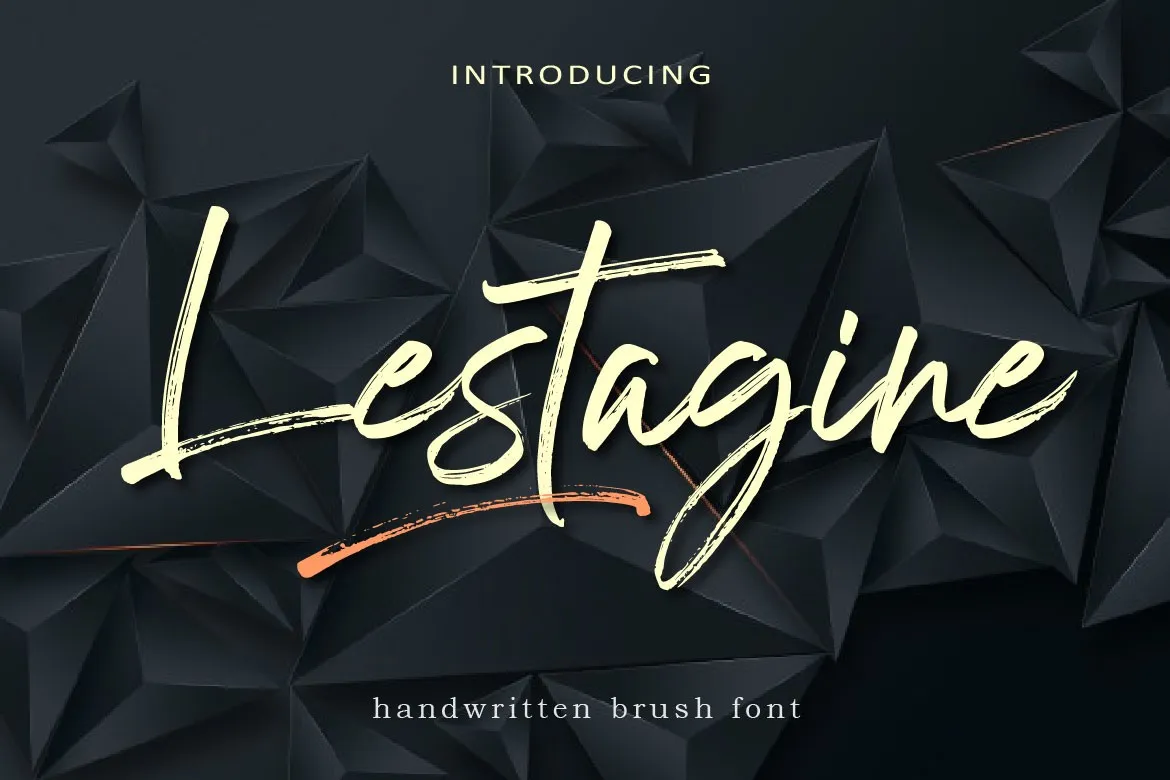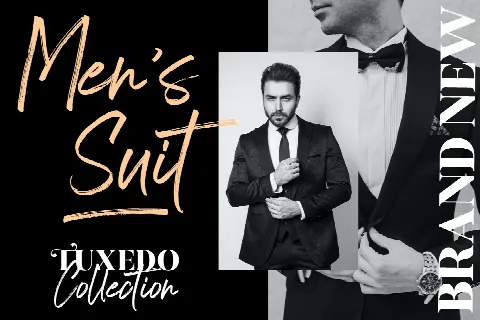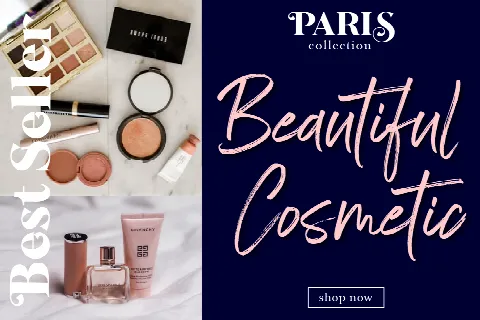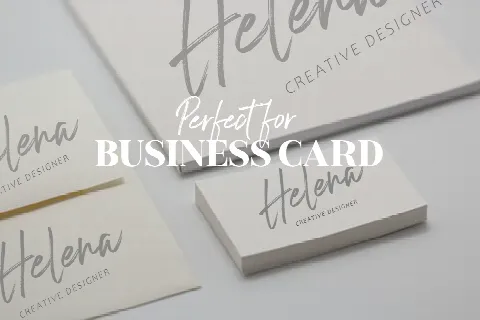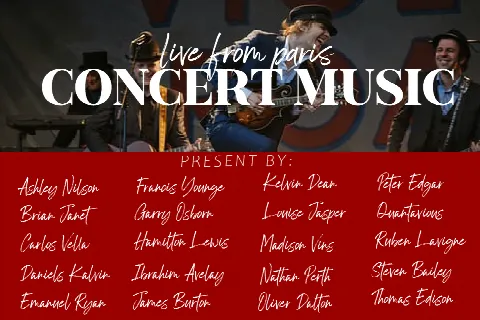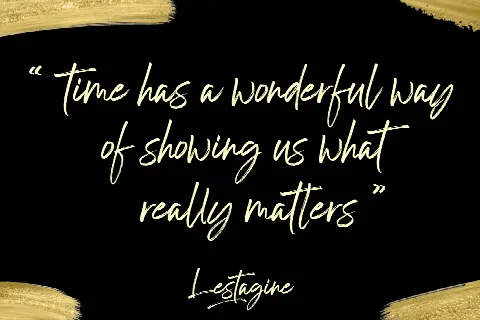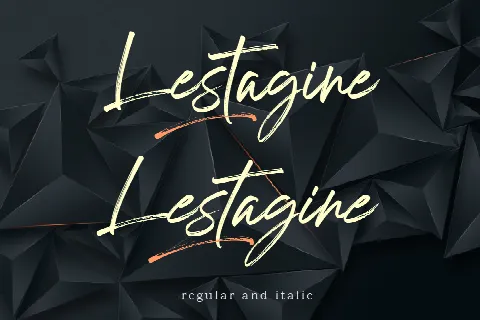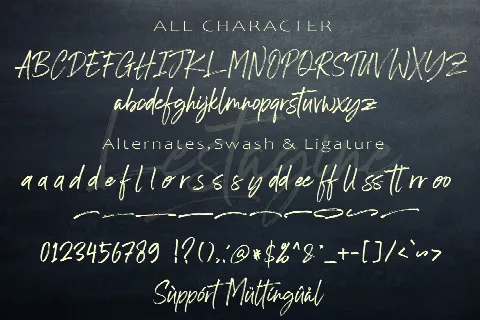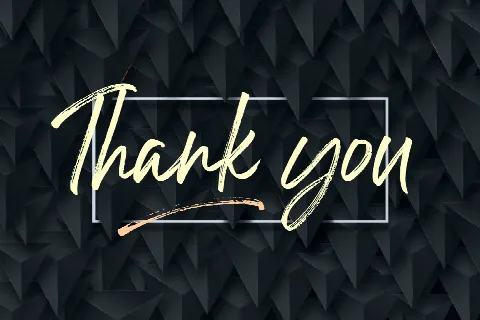
Lestagine
Introducing
Lestagine is an amazing handwritten brush font. Created with brush pen to give a great contrast between thick and thin curves. Drawn, Scanned & Vectorized from paper to screen. I wanted to create an authentic brush typeface leaving the texture and imperfections the way they are, but perfect for any awesome project that need hand writing taste.
Comes with regular and italic, also support multilingual. This is suitable for branding, quotes, invitations, stationery, wedding design, logos, watermarks on photography, signatures, advertisement, album covers, business cards, clothing, magazines, posters, and more!